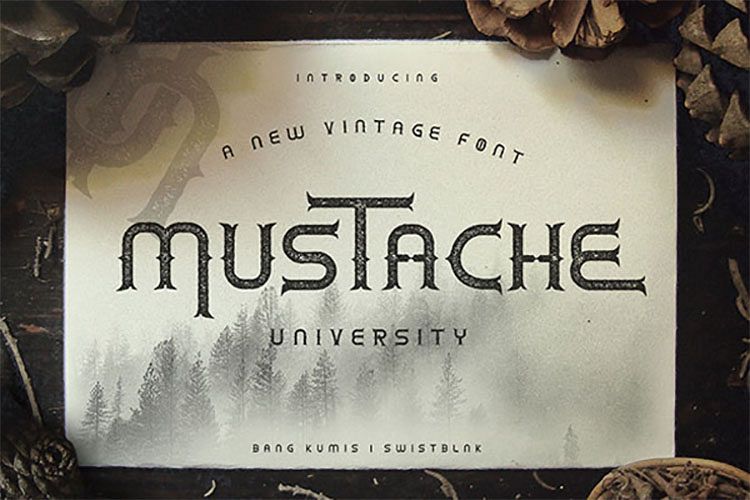
Mustache University
Mustache University is wild vintage font inspirated by oldskool signage,letterpress etc.In collaboration with awesome font designer agga swistblnk. Come with 3 family of font. they are :
• Mustache University
• Mustache University Wild
• Mustache University Wild Vintage
Its look cool for your typography design, sign, logotype, newspaper headlines, letterhead or else.